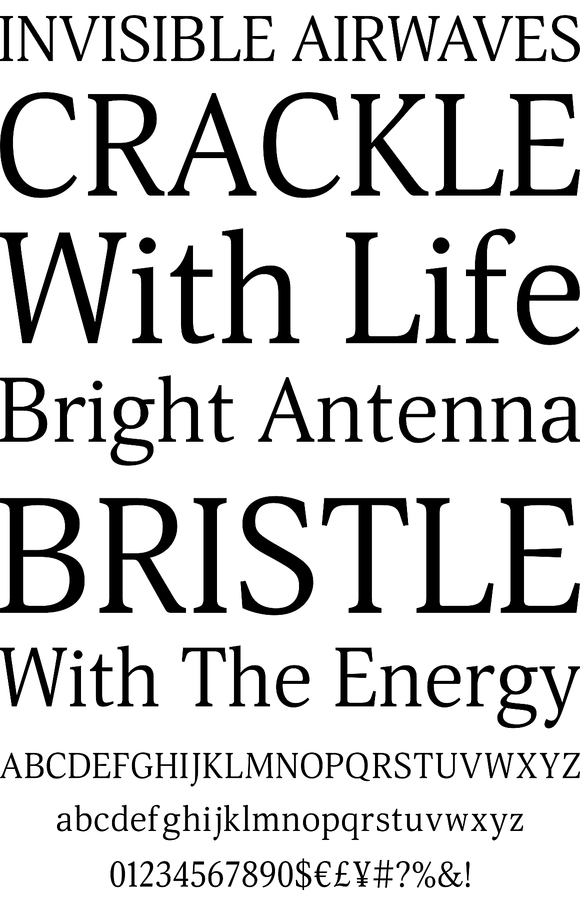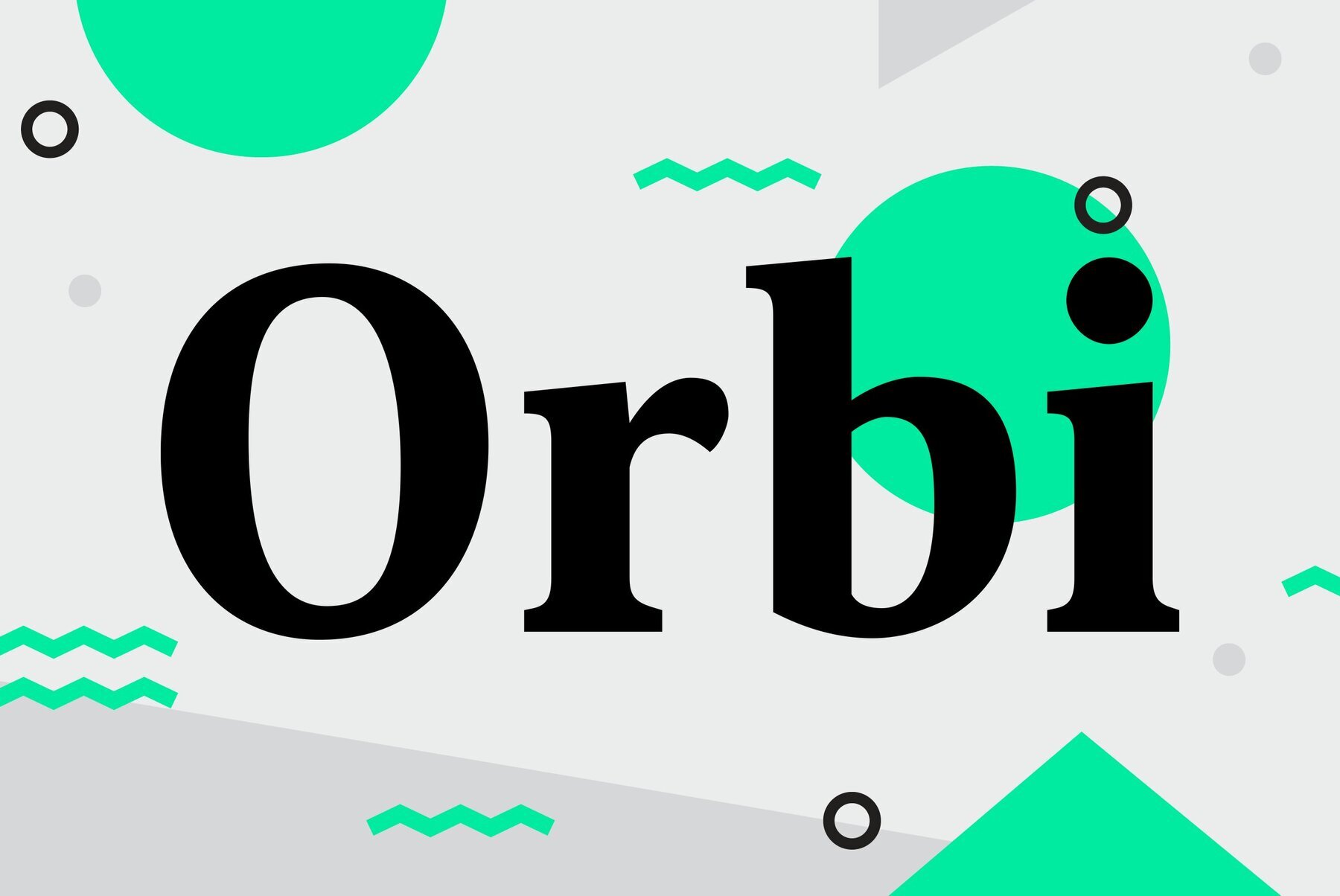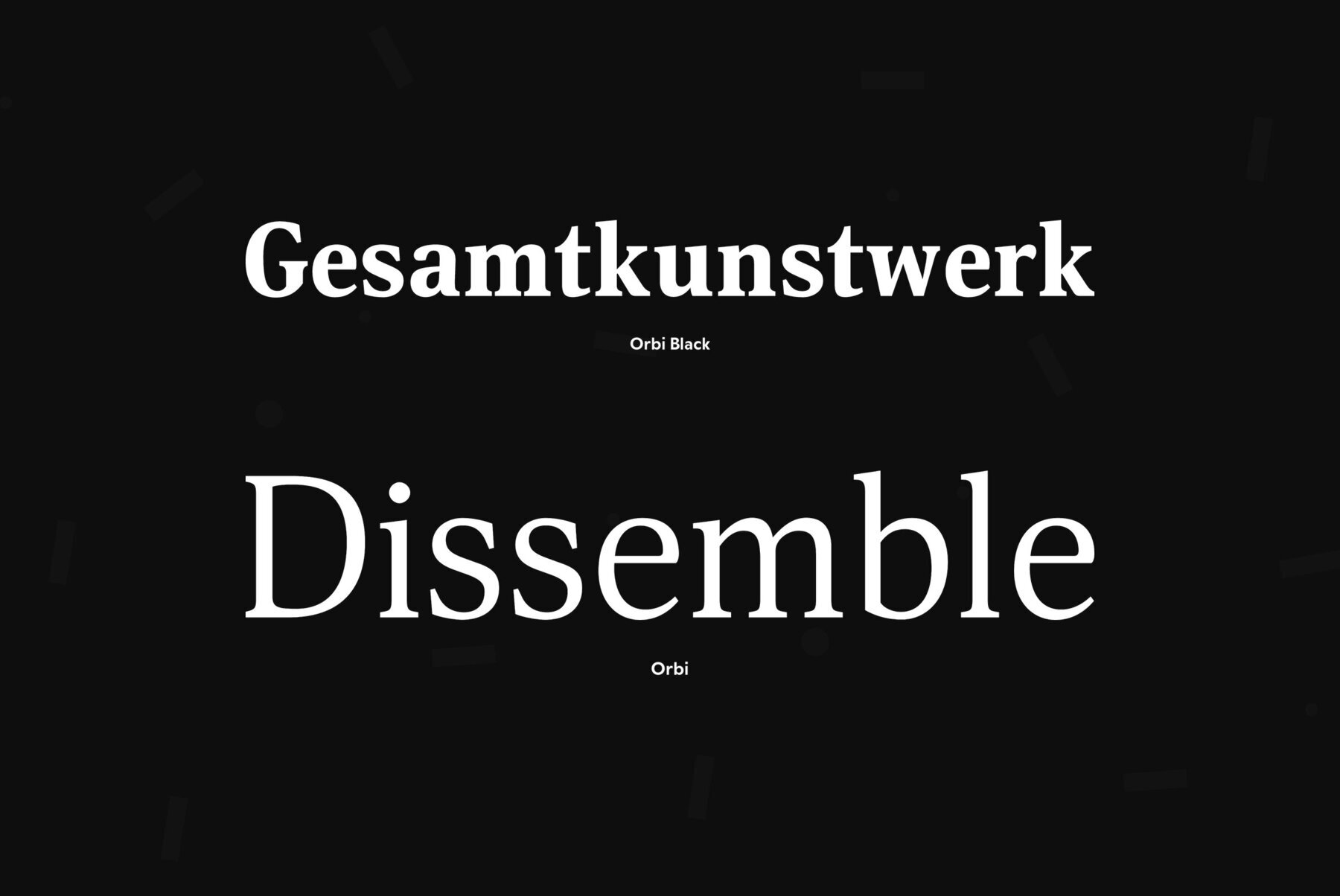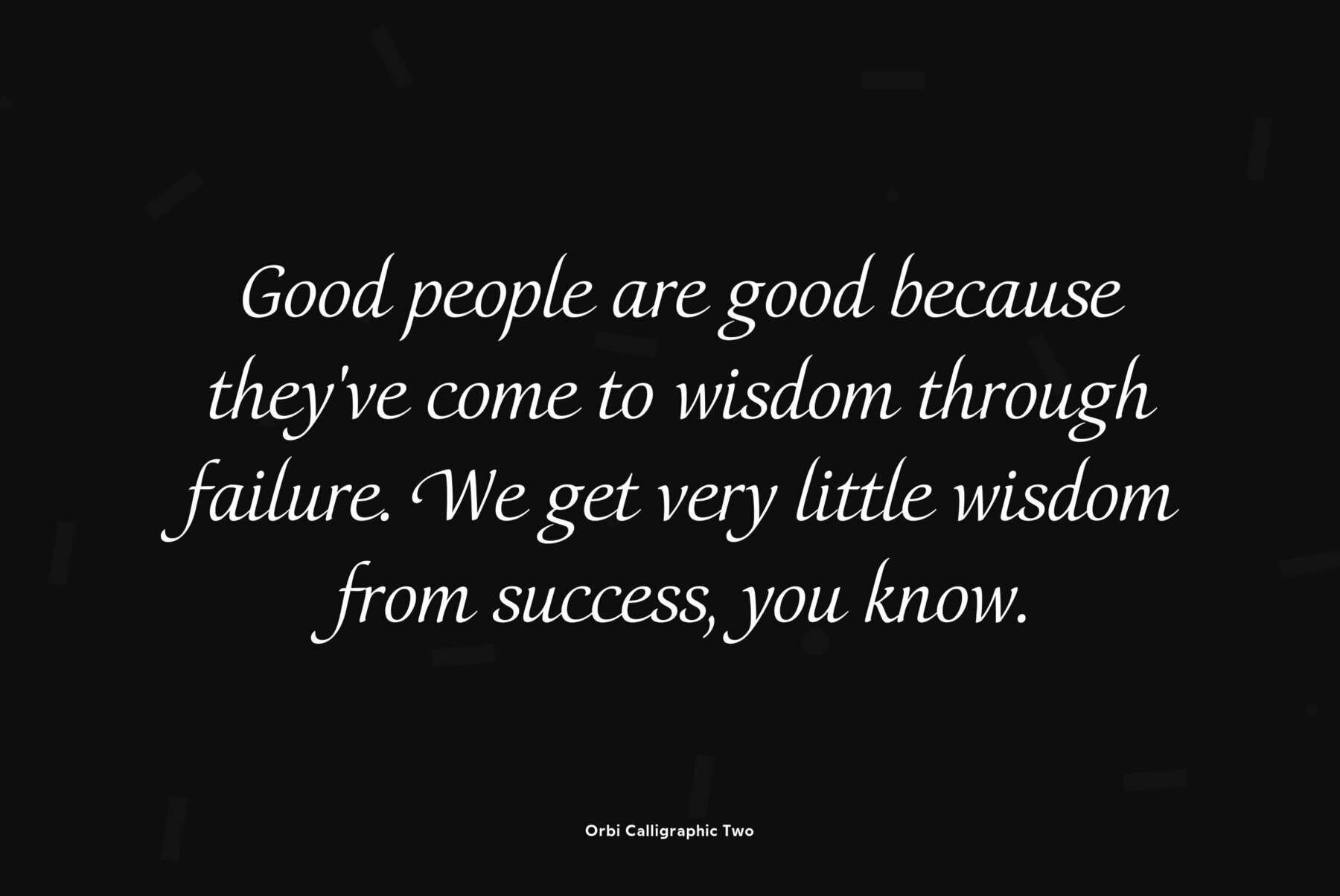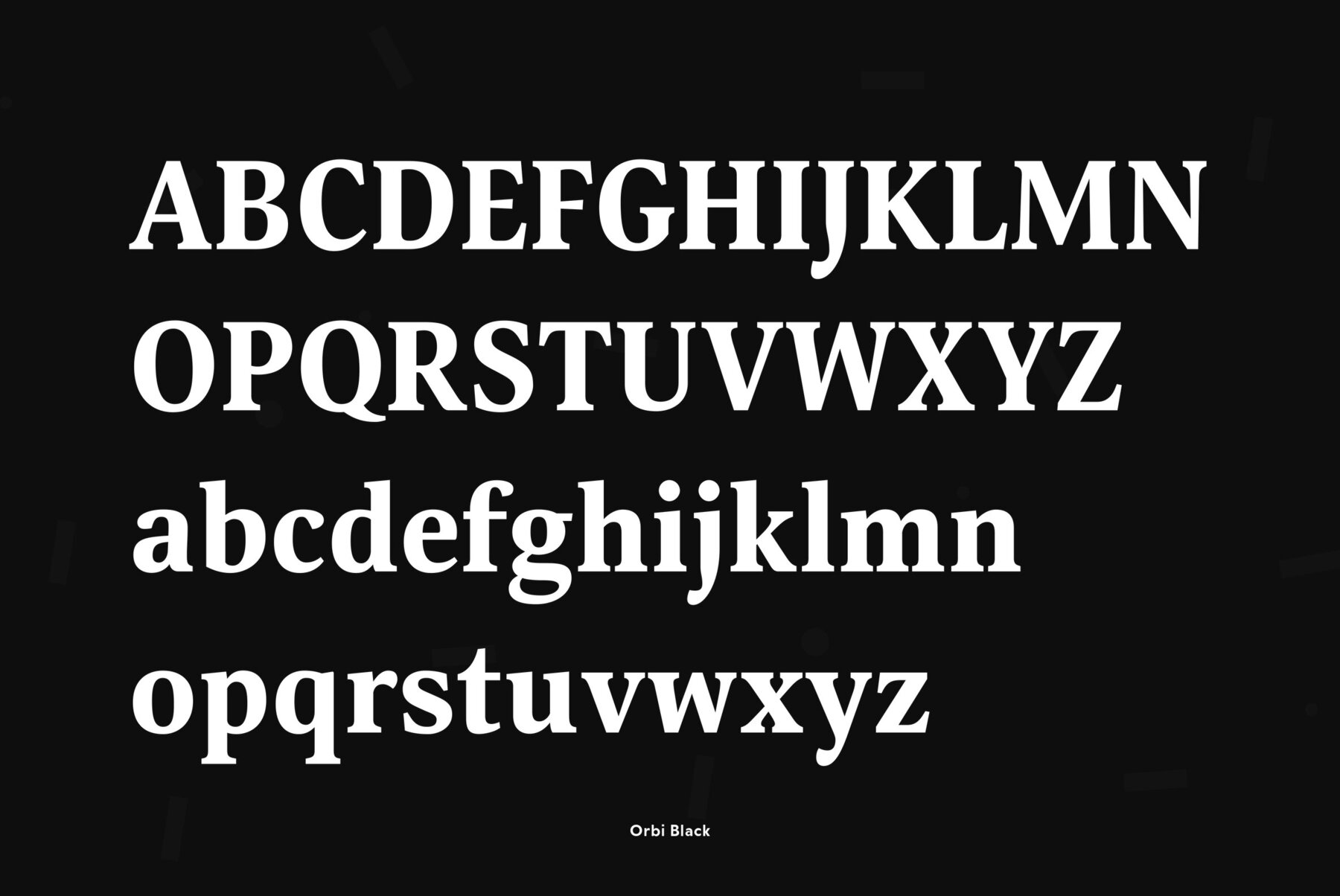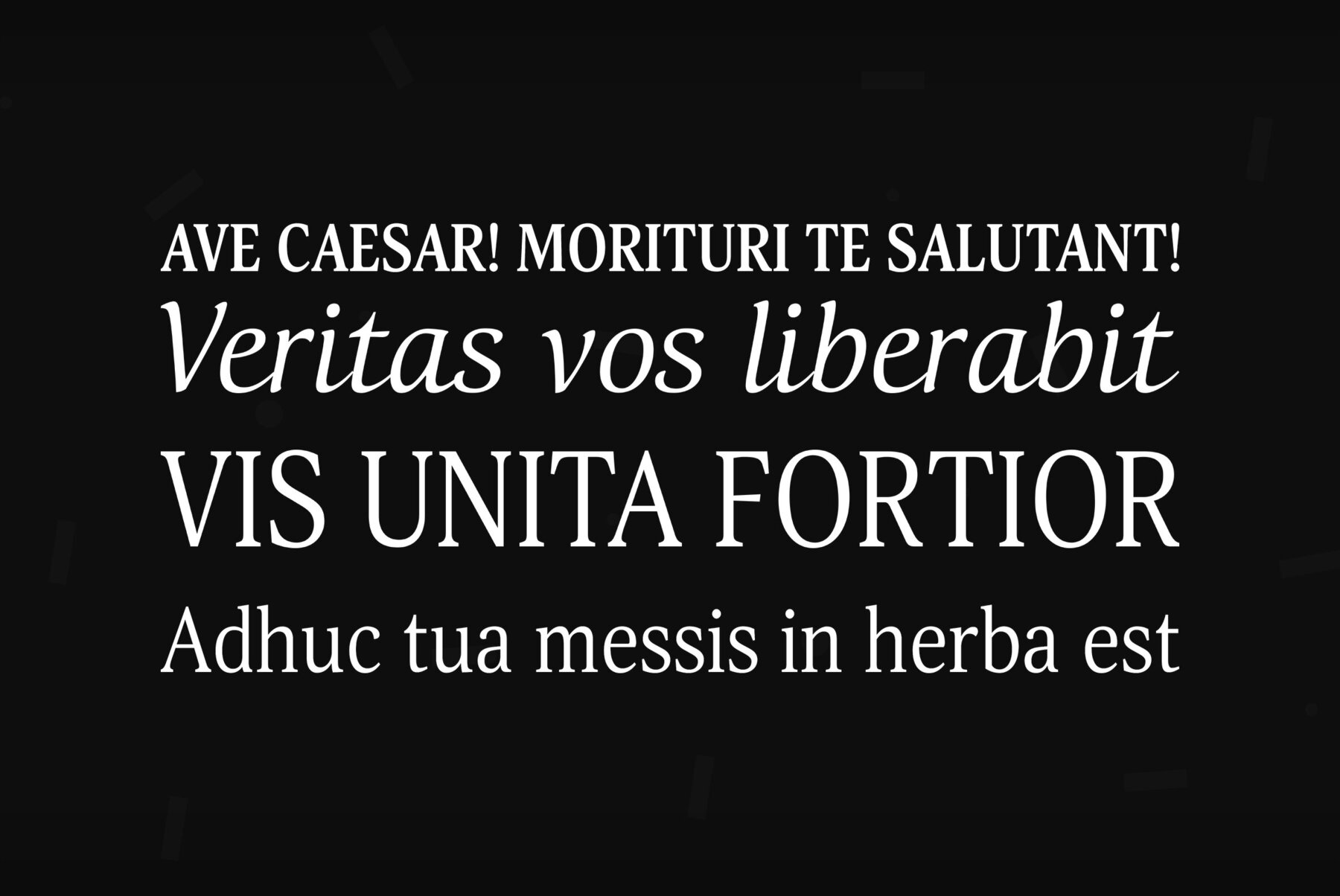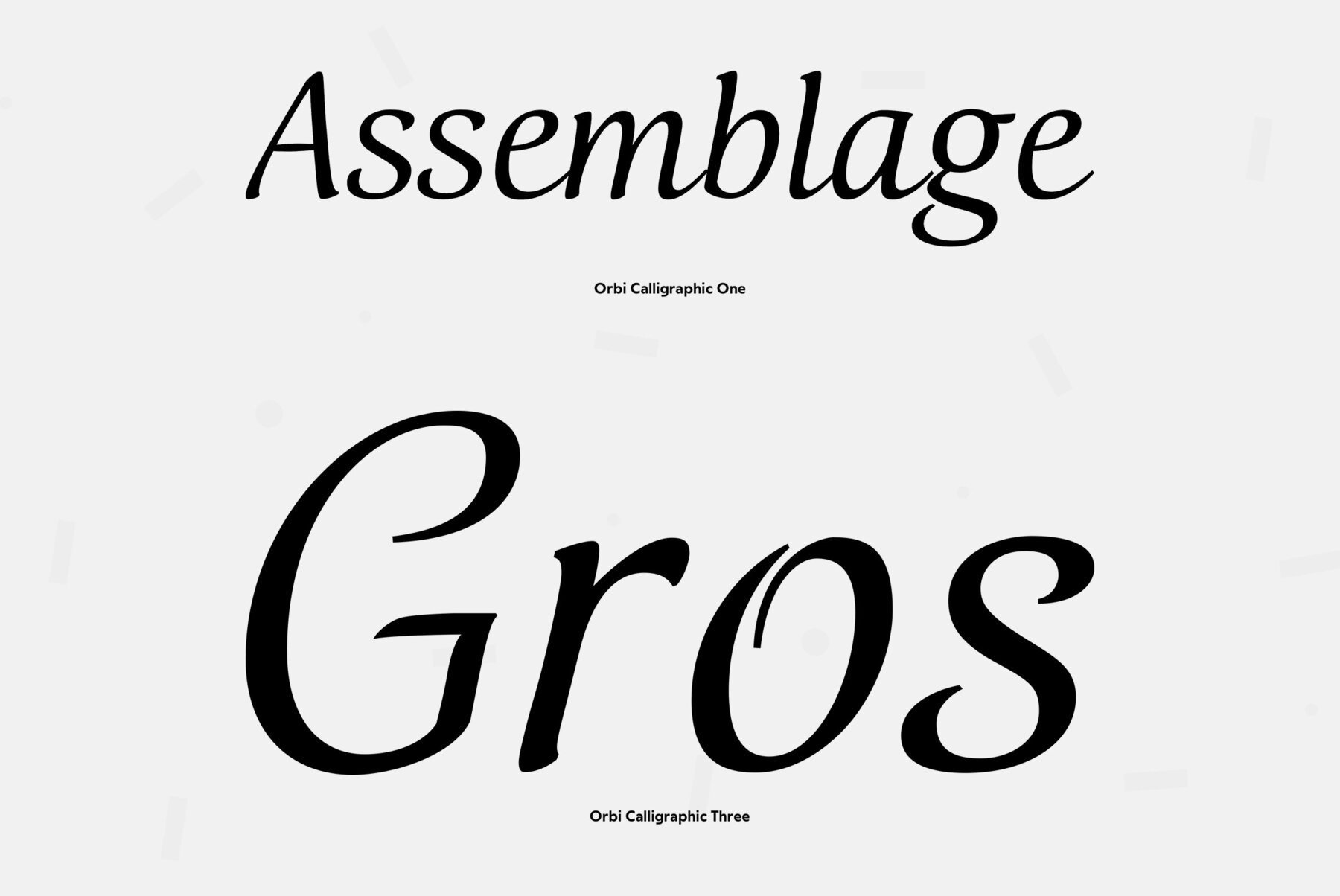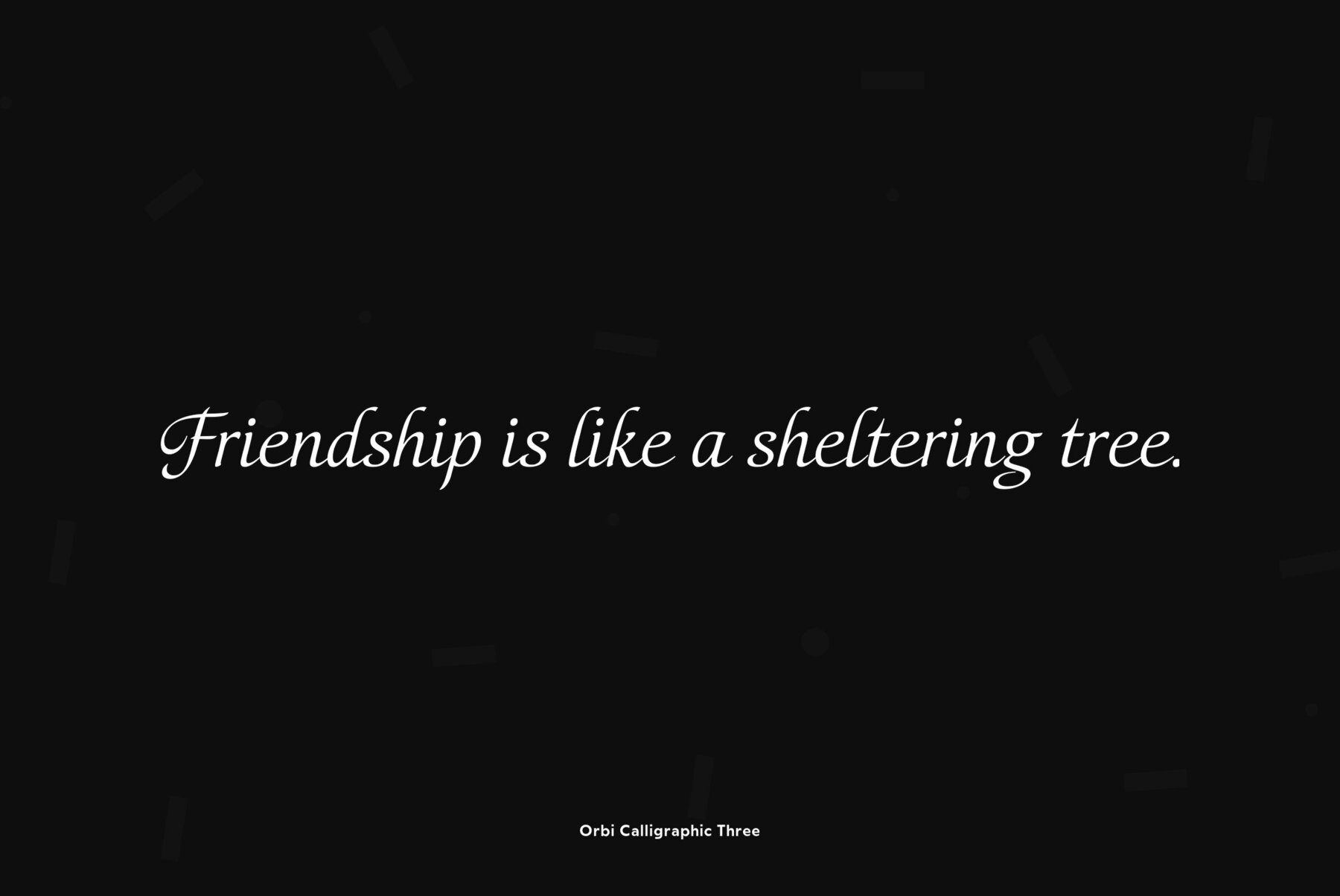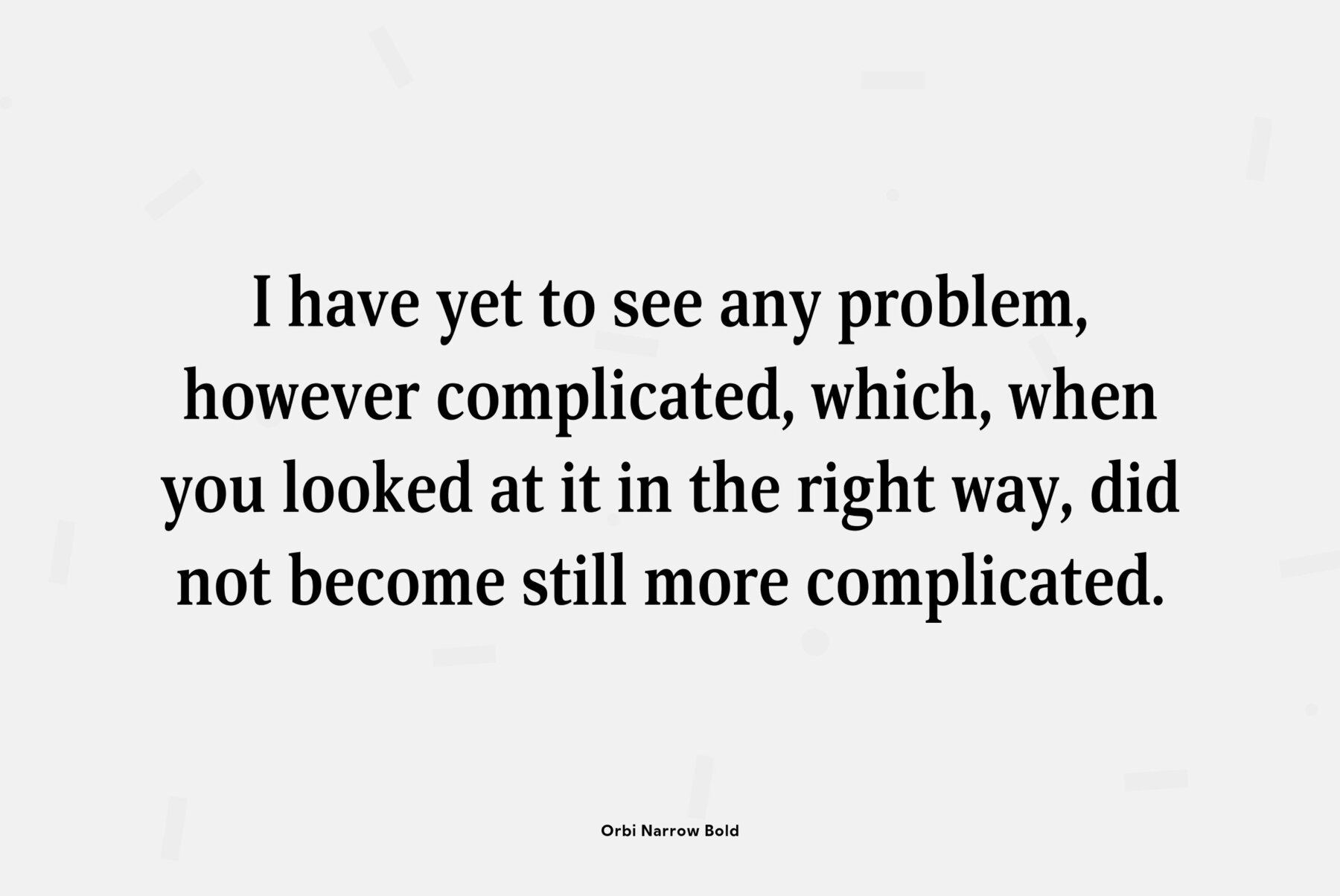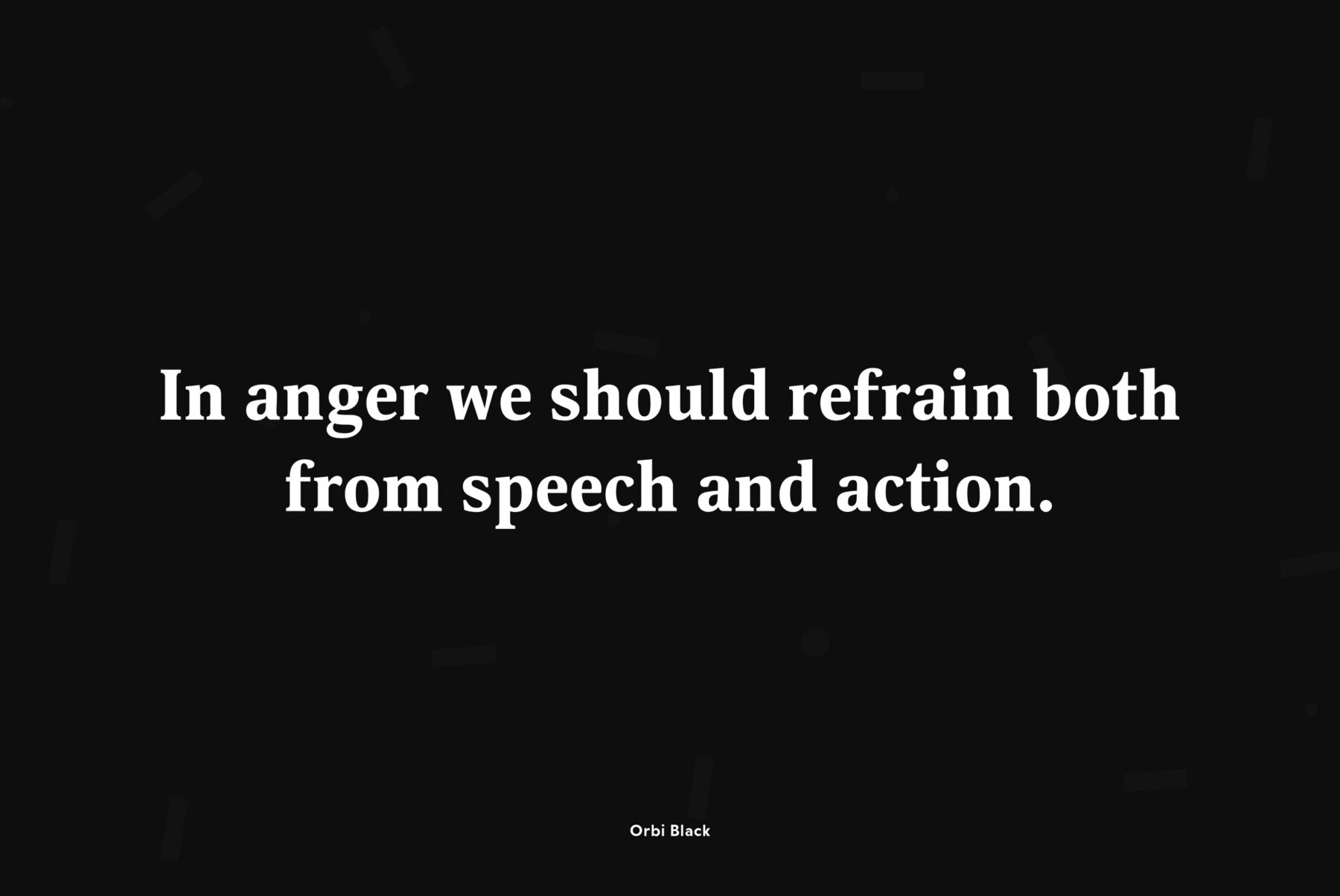
Type system Orbi is low contrast antiqua of elegant design with a well developed set of members. It consists of 10 roman and italic faces of different proportions and weights and 3 decorative calligraphic fonts.
Type system Orbi is low contrast antiqua of elegant design with a well developed set of members. It consists of 10 roman and italic faces of different proportions and weights and 3 decorative calligraphic fonts. It also contains 3 additional fonts with variants of decorated initials. Roman style includes small capitals. Due to wide variety of styles the font can be used in different areas -- basic styles are good for books and periodicals, narrow styles can work in columns and tables of business papers, decorative styles can find a place in ceremonial typography where swashes, calligraphy and initials are usual. The fonts were designed by Natalia Vasilyeva. Released by ParaType in 2010.